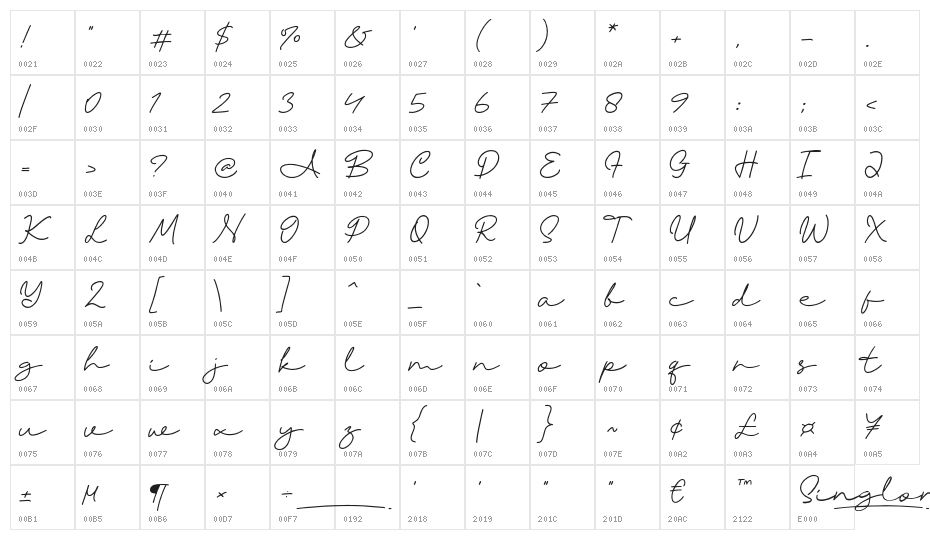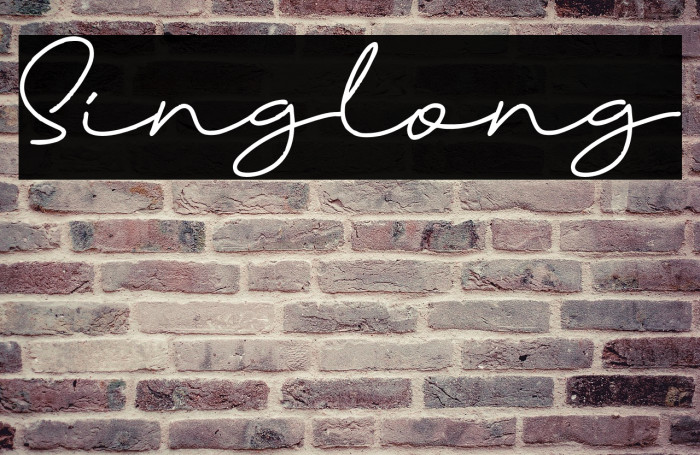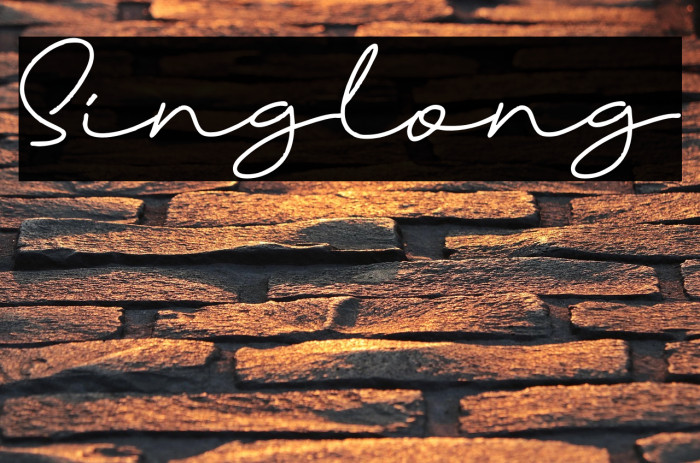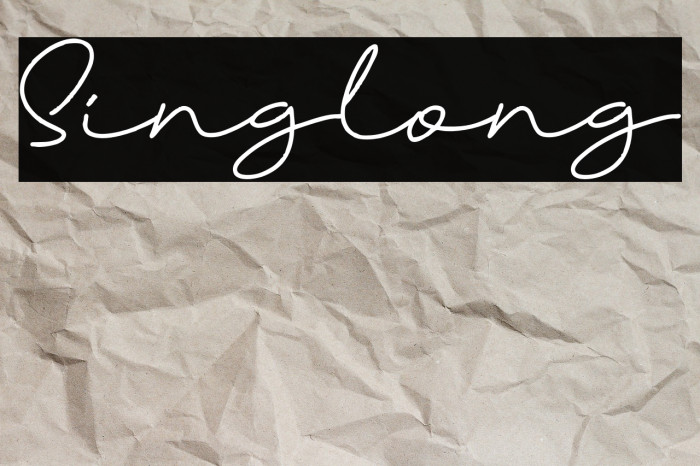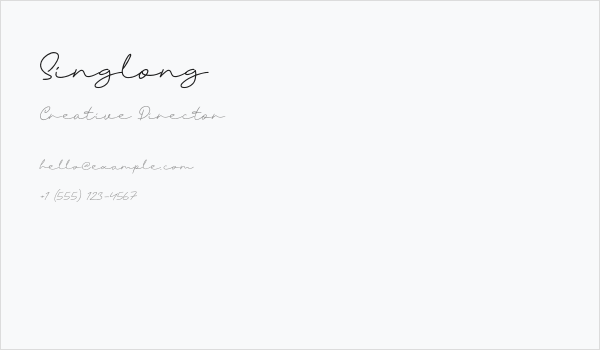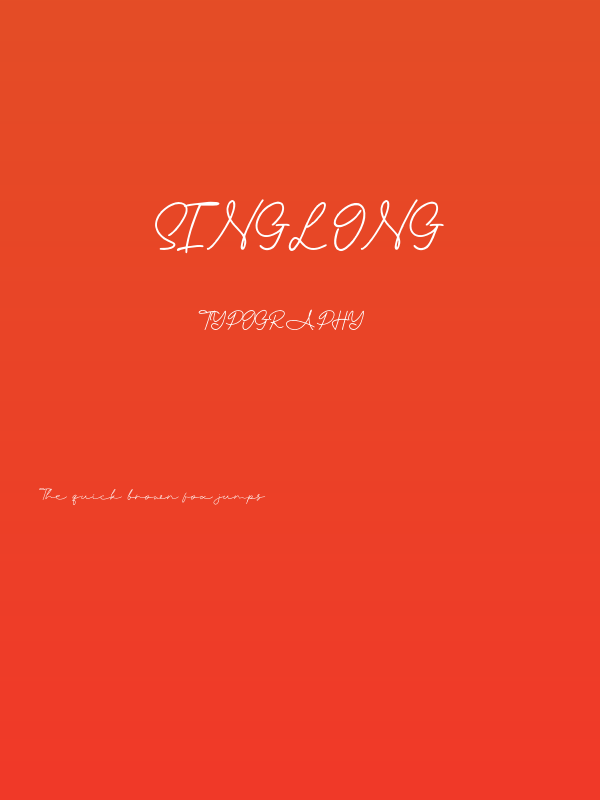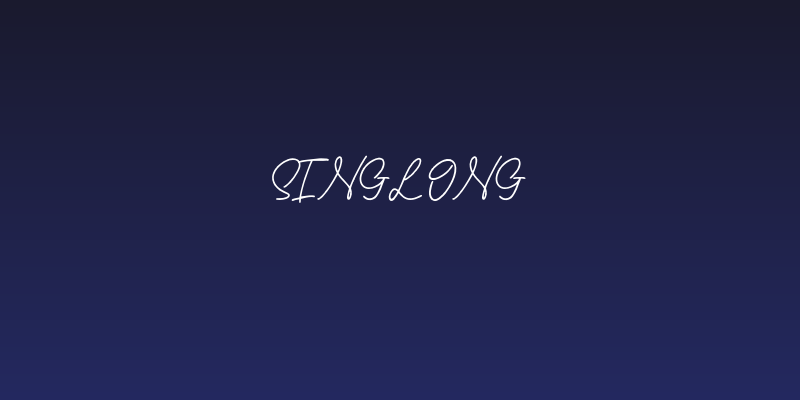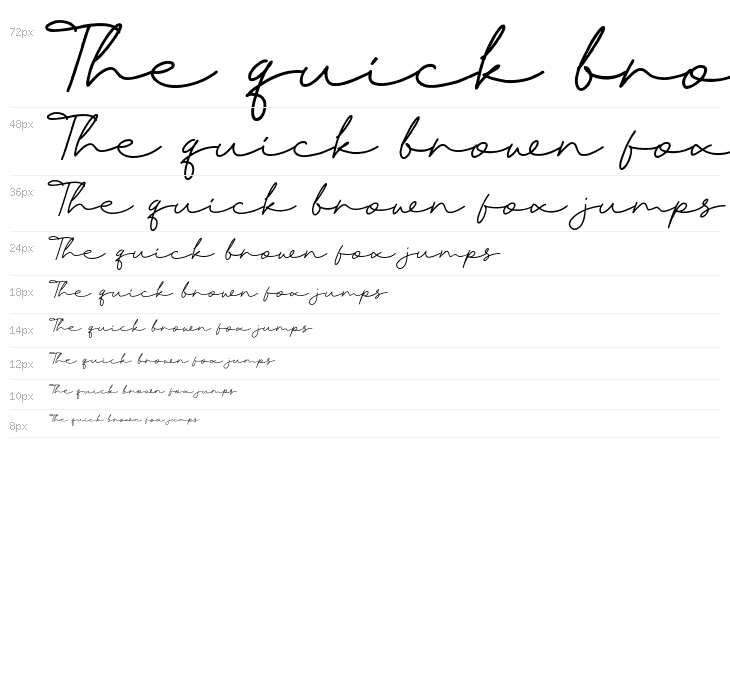
Singlong Font
Singlong Description
This elegant script font features a fluid, cursive style with smooth, flowing lines that mimic natural handwriting. The uppercase letters are slightly larger and more elaborate, while the lowercase letters maintain a consistent, connected flow. The numerals and special characters are designed to complement the overall script style, adding a touch of sophistication. The font's delicate strokes and graceful curves make it ideal for projects that require a personal, handwritten touch.
| Overall Style | Elegant, Handwritten |
| Use Case | Logos, Invitations, Personal Branding |
| Proposed Projects | Ideal for wedding invitations, greeting cards, personal branding, and elegant logos. |